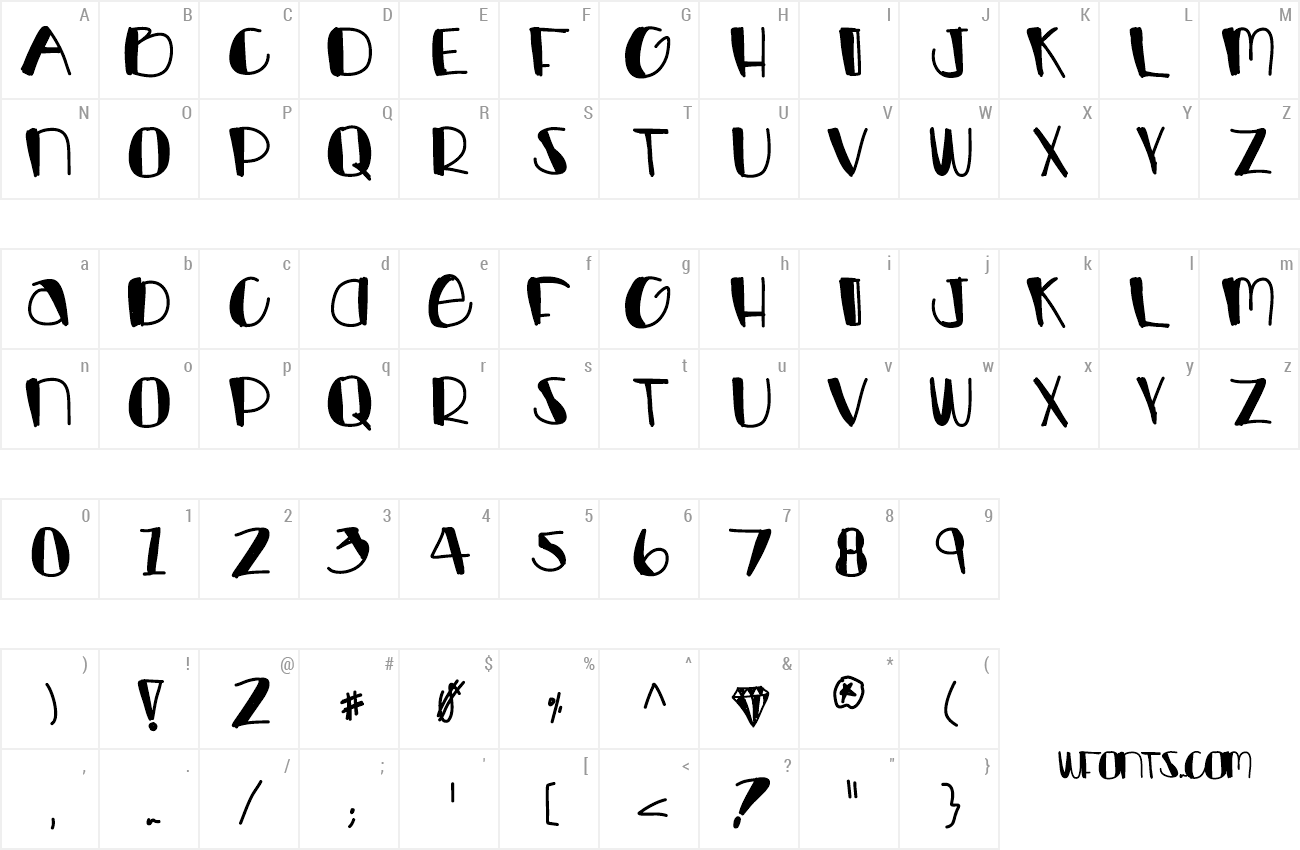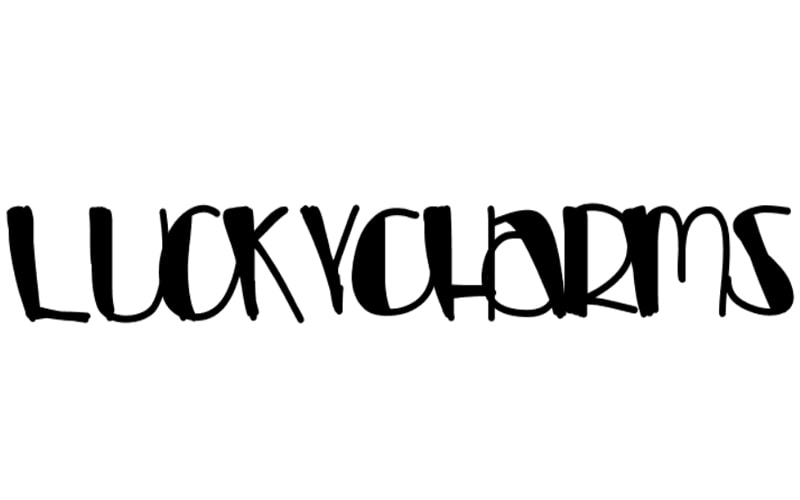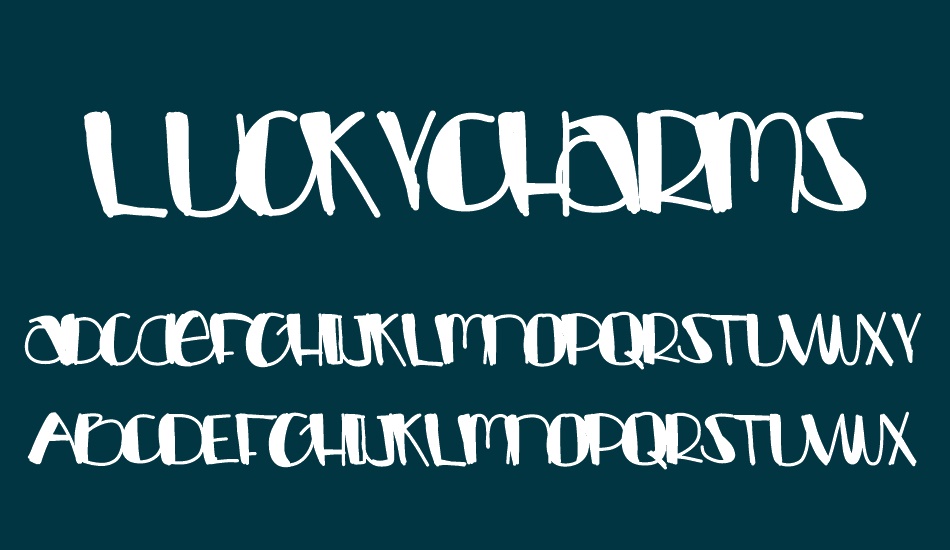
Lucky Charms Font Free
LuckyCharms Font download free
Lucky Charms free font
Lucky Charms Font
Lucky Charms Font Download Fonts4Free
Lucky Charms Font Download
Lucky Charms by Blue Vinyl Font Download
Lucky Charms Font
Lucky Charms free font
Web download the lucky charms font for free from 1001 fonts free, a site that offers thousands of fonts for personal or. Browse by alphabetical listing, by style, by author or by popularity. This font is licensed as. Web looking for luck fonts? Download the lucky charms free font.
Lucky Charms Font Free Download
This font is licensed as. Detailed information on the lucky charms font: Every font is free to download! Web download the lucky charms font for free from 1001 fonts free, a site that offers thousands of fonts for personal or. Download the lucky charms free font.
Web Download The Lucky Charms Font For Free From 1001 Fonts Free, A Site That Offers Thousands Of Fonts For Personal Or.
Web looking for luck fonts? Browse by alphabetical listing, by style, by author or by popularity. 256,139 downloads (4 yesterday) free for personal use. This font is licensed as.
Web download the lucky charms font by des gomez, a handwritten font with a charm bracelet design. Web lucky charms by jess latham. Detailed information on the lucky charms font: Every font is free to download!